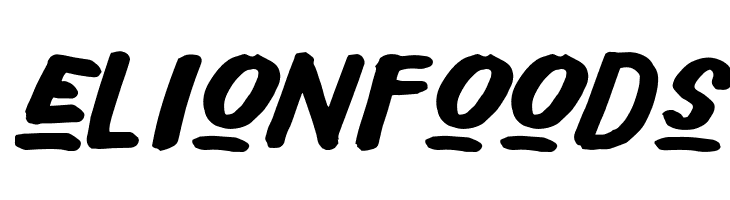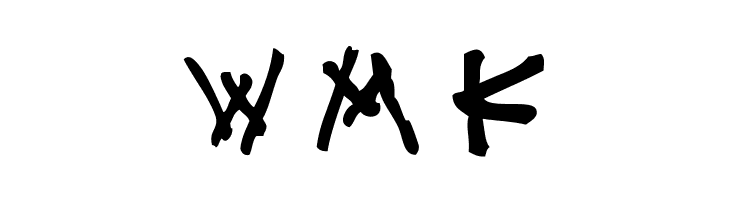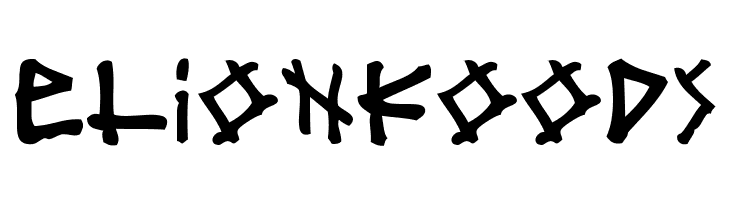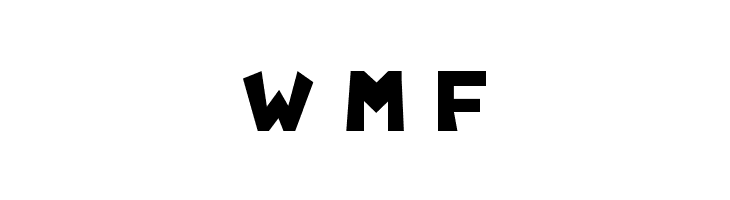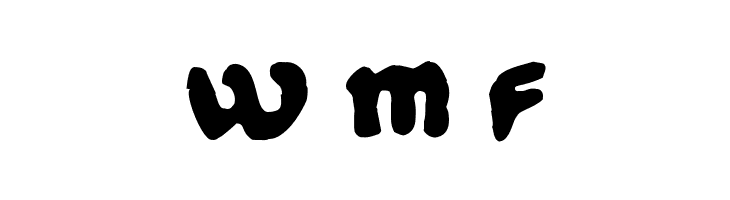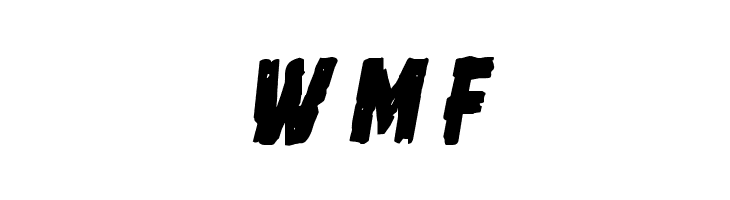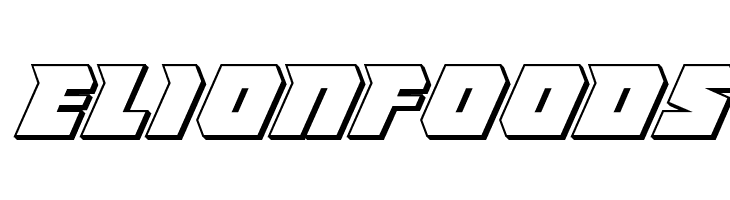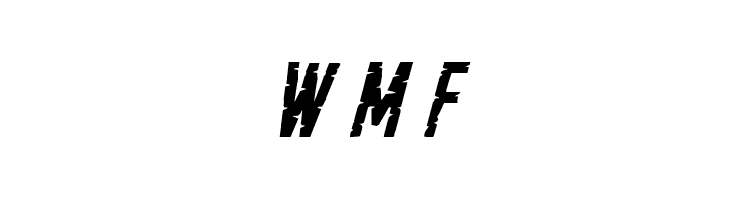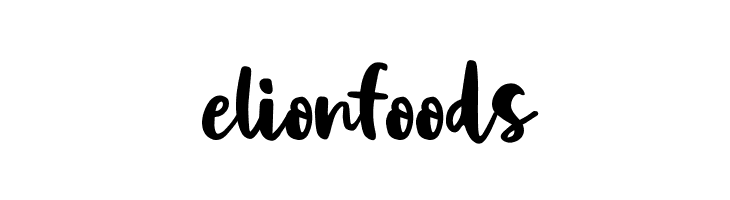
A bold, dynamic font with rounded edges and a playful, energetic style.
A bold, condensed, and italicized font with a playful, energetic style.
A bold, hand-drawn font with a playful and energetic style.
A bold, brush-style font with dynamic, sweeping strokes and a slanted, energetic appearance.
A playful, bold outline font with a whimsical and energetic style.
A bold, brush-style font with dynamic and energetic strokes.
A bold, brush-style font with a casual and energetic vibe.
A bold, handwritten font with dynamic and energetic strokes.
A playful, bold font with a hand-drawn, energetic style.
A bold, spiky font with a graffiti-like, energetic style.
A bold, handwritten font with a casual and energetic style.
A bold, angular font with a playful and dynamic style.
A graffiti-inspired font with jagged, energetic strokes and an urban vibe.
A bold, graffiti-inspired font with a dynamic and energetic style.
A bold, playful font with a cartoonish, energetic style.
A bold, condensed, and italic font with rough, energetic styling.
A bold, dynamic font with angular letterforms and star motifs, perfect for impactful designs.
A bold, 3D font with lightning bolt motifs and a dynamic, energetic style.
A bold, expanded, semi-italic font with a dynamic and energetic style.
A bold, staggered italic font with a dynamic, distressed style.
A dynamic handwritten font with fluid strokes and a casual, energetic style.
A rough, energetic font with a chalk-like, hand-drawn appearance.
A bold, graffiti-inspired script font with a playful and energetic style.
A bold, playful handwritten font with an energetic style.